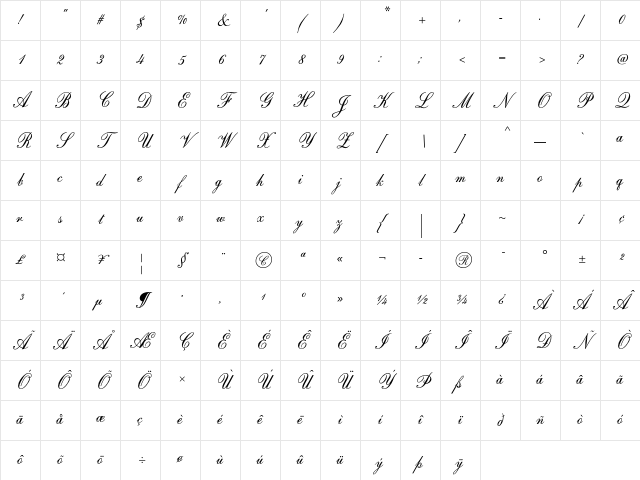
Original Script Std Regular
Design Context for Original Script Std
Original Script Std flows with the natural rhythm of handwritten lettering, making it ideal for designs that call for warmth and personal expression.
Font Pairing: Combine Original Script Std with a simple geometric sans for maximum contrast - the tension between flowing curves and clean structure is a classic typographic pairing.
Pro Tip: Use Original Script Std for short runs of text - names, titles, or taglines. Extended body copy in script faces tires the eye quickly.